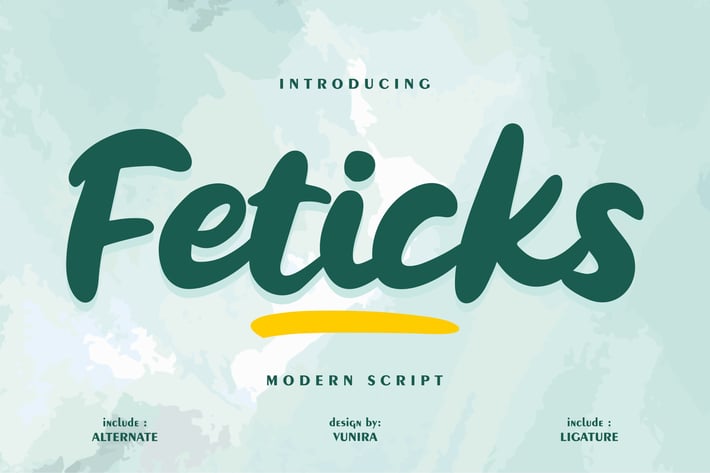
Feticks | Moden Script Font
Feticks | Moden Script Font with a calligraphy style, So beautiful on invitation like greeting cards, branding materials, business cards, quotes, posters, and more!